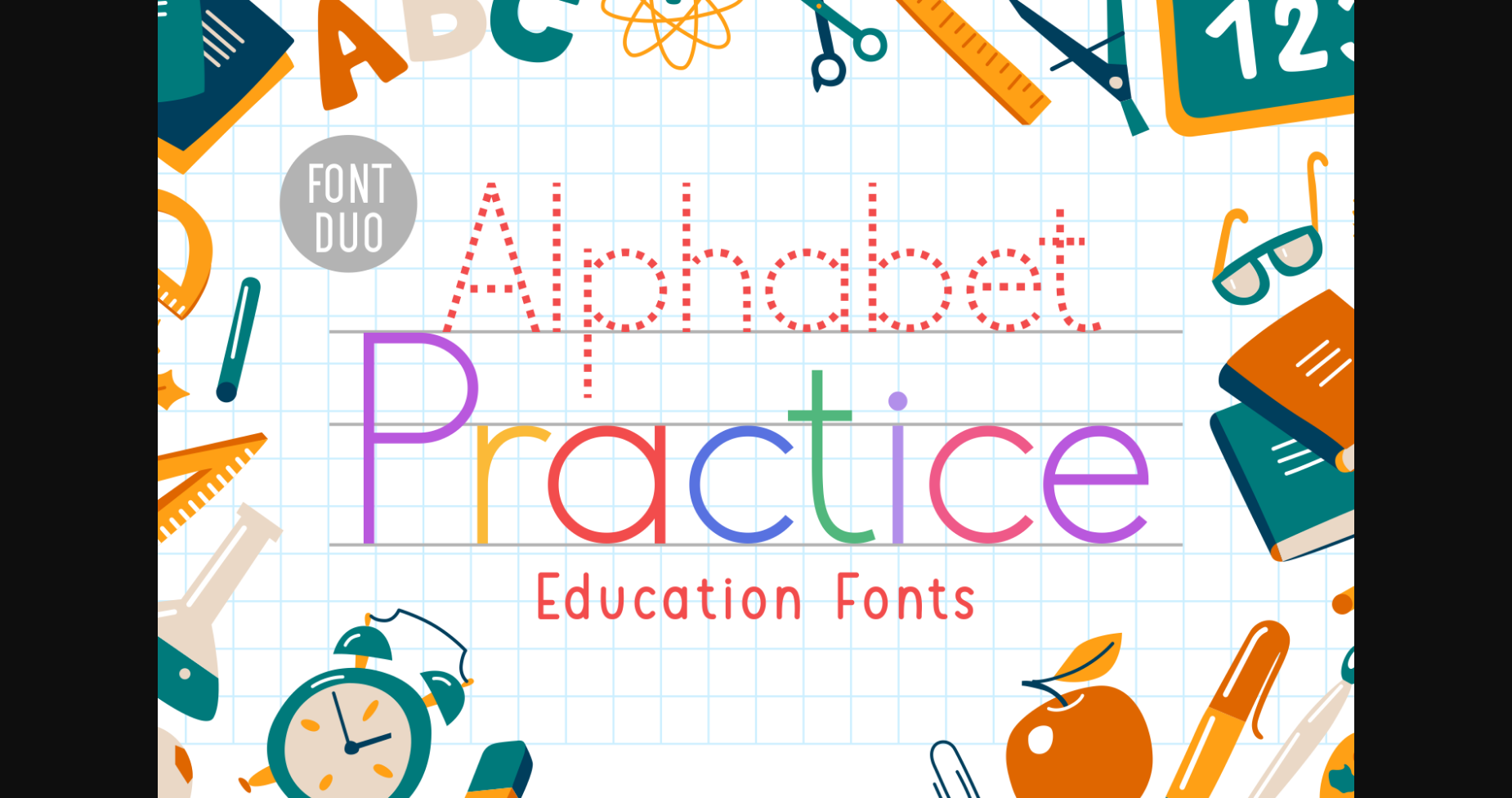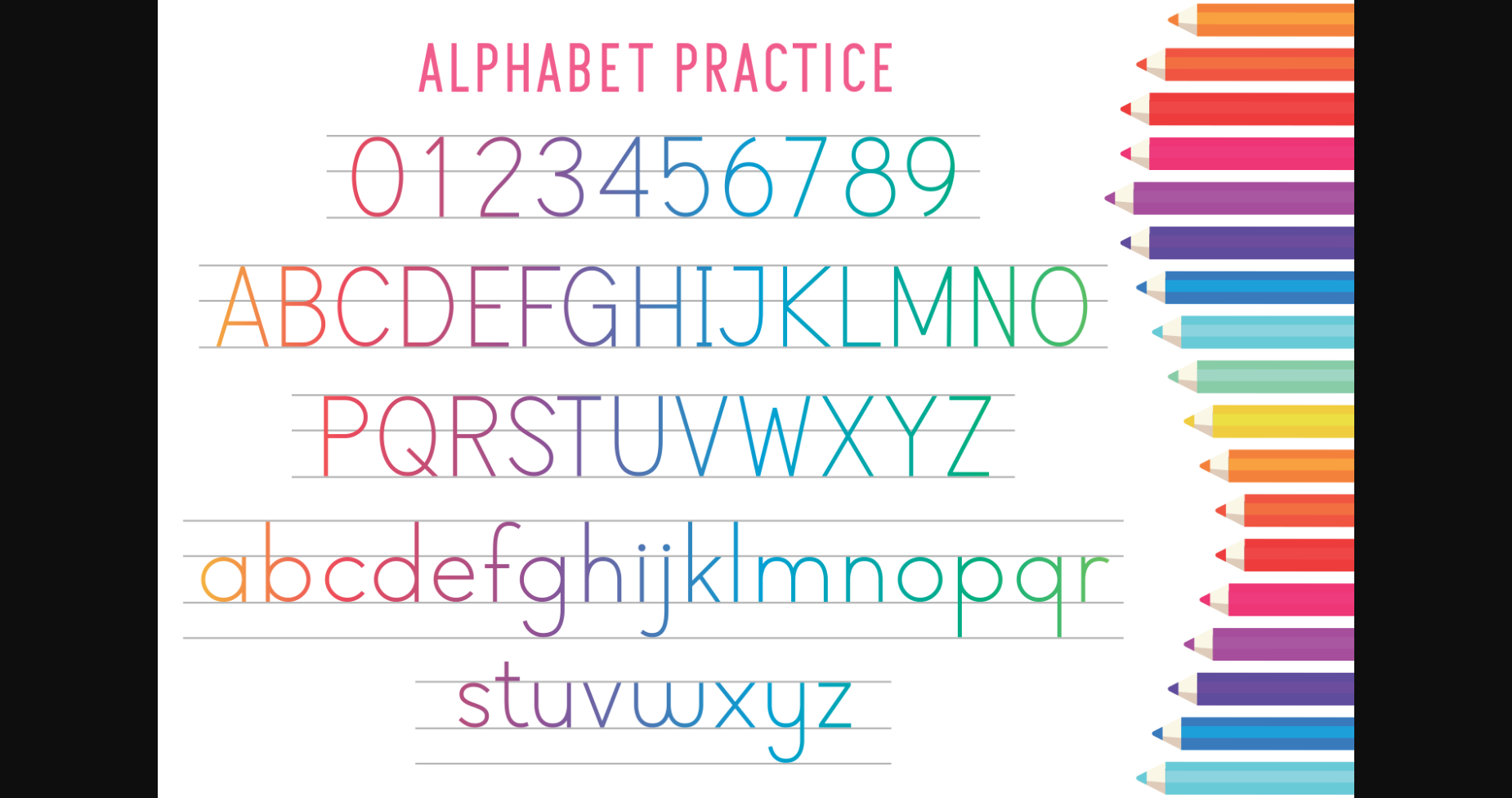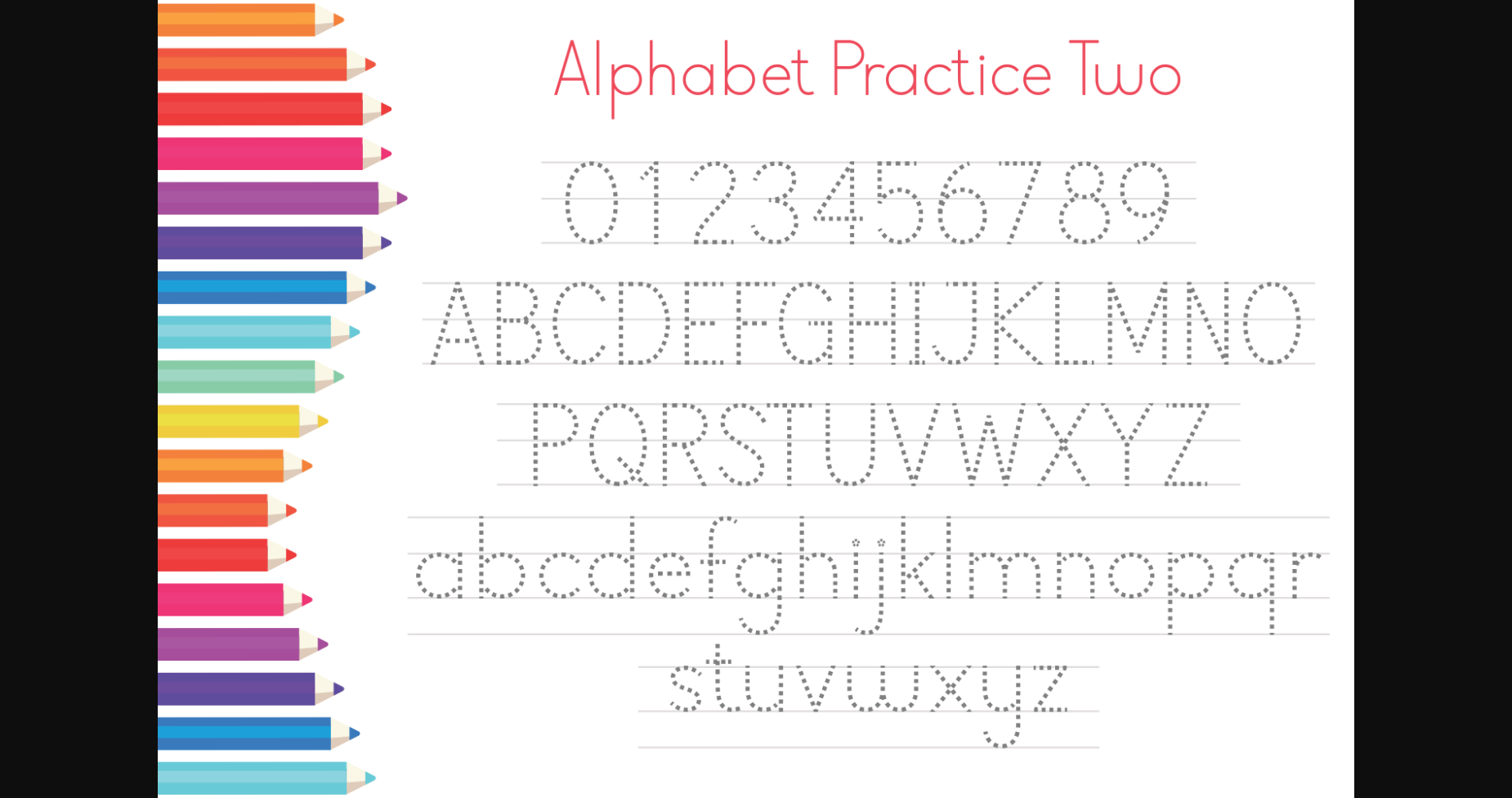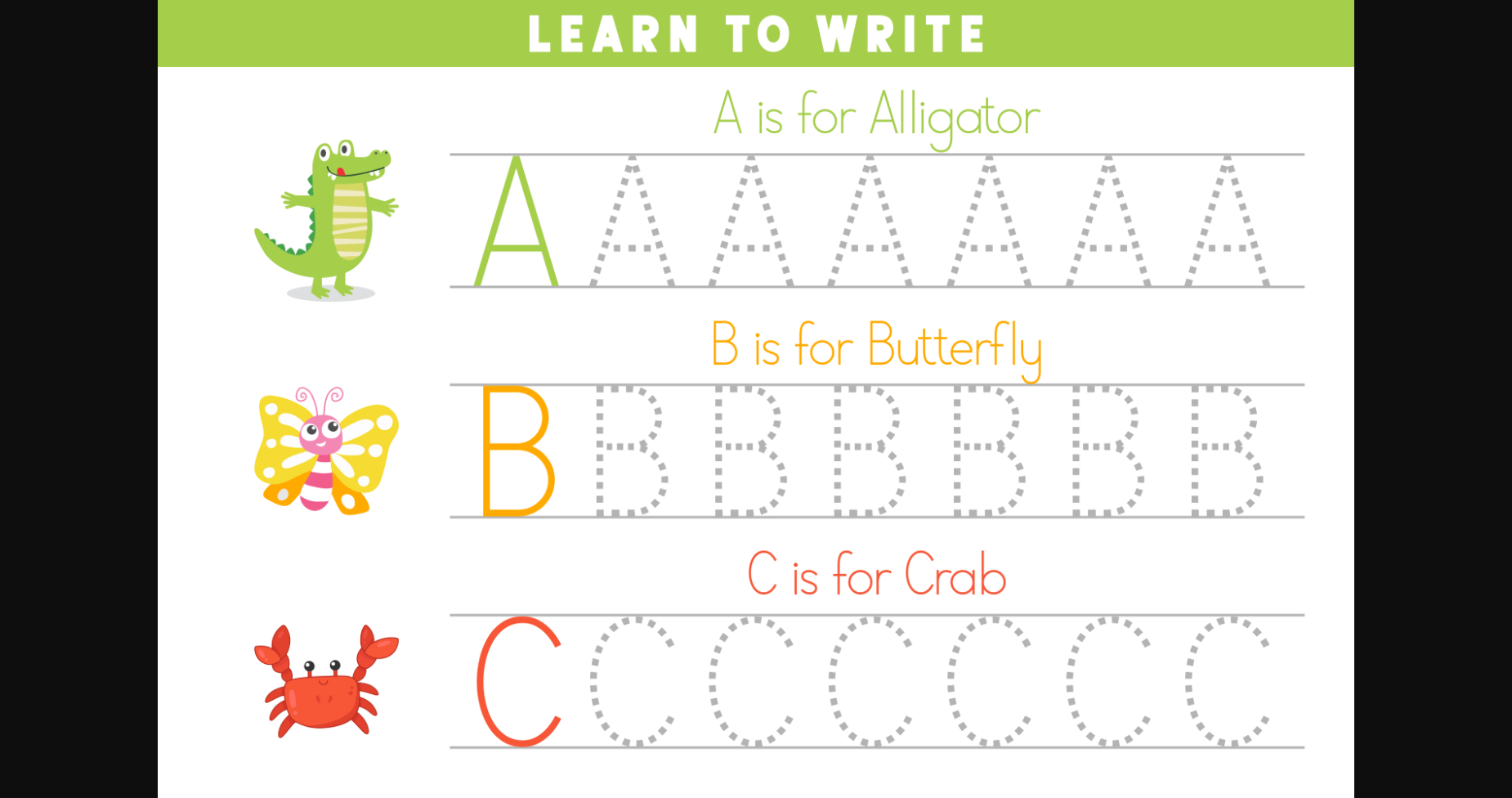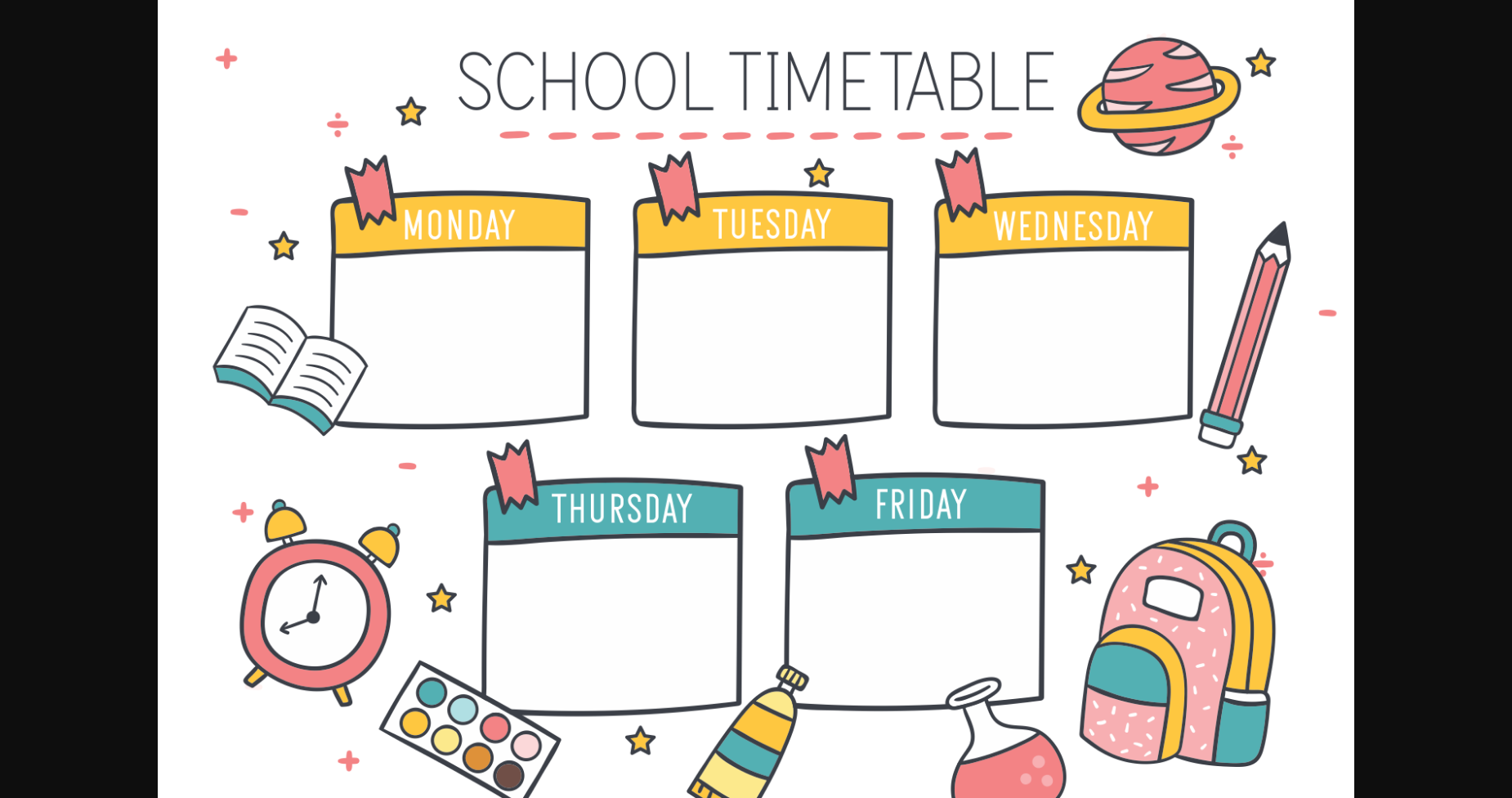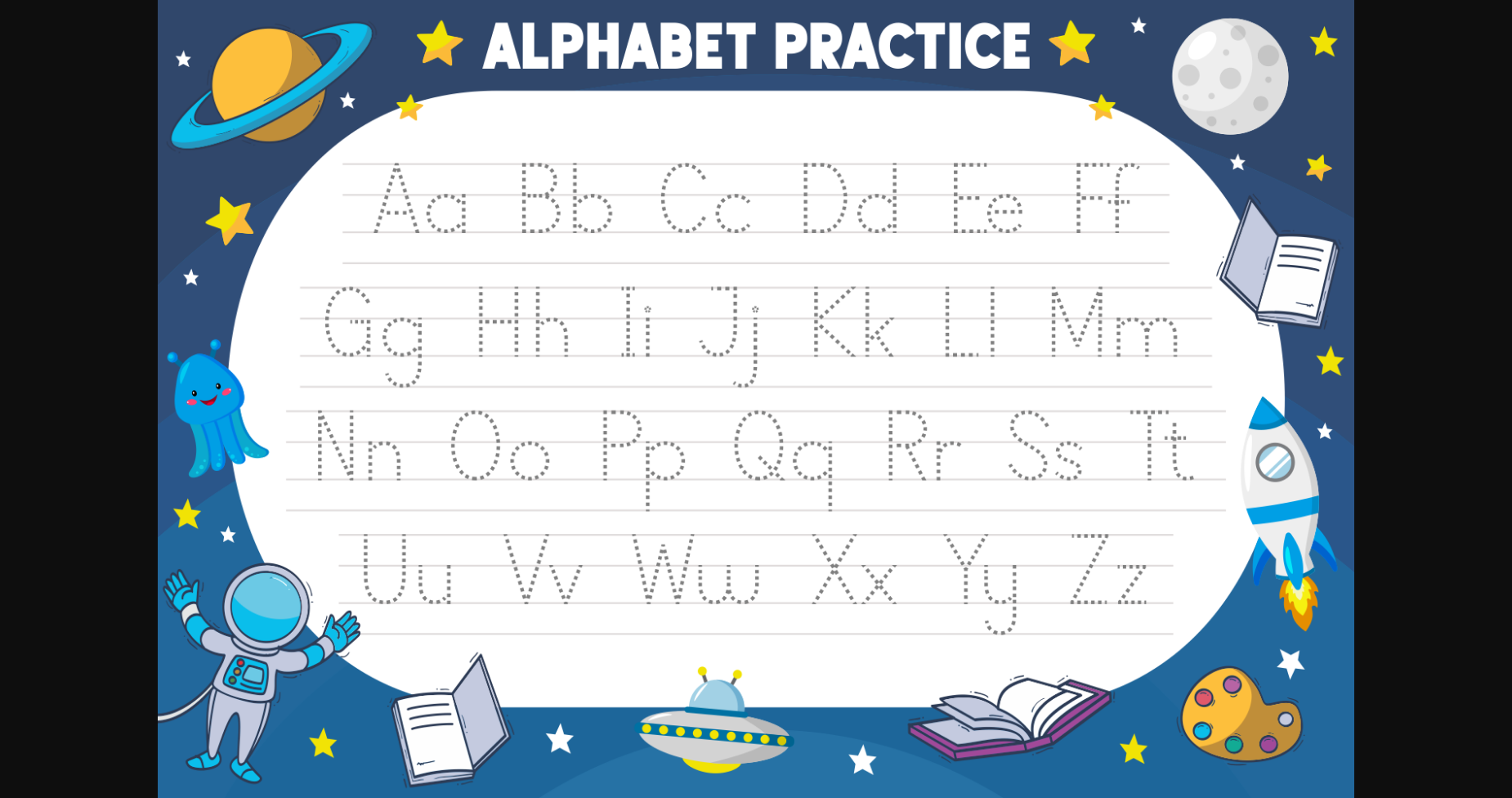
Alphabet Practice is a simple, clean, and thin lettered sans serif font. This font is ideal for creating teaching materials and children educative games.